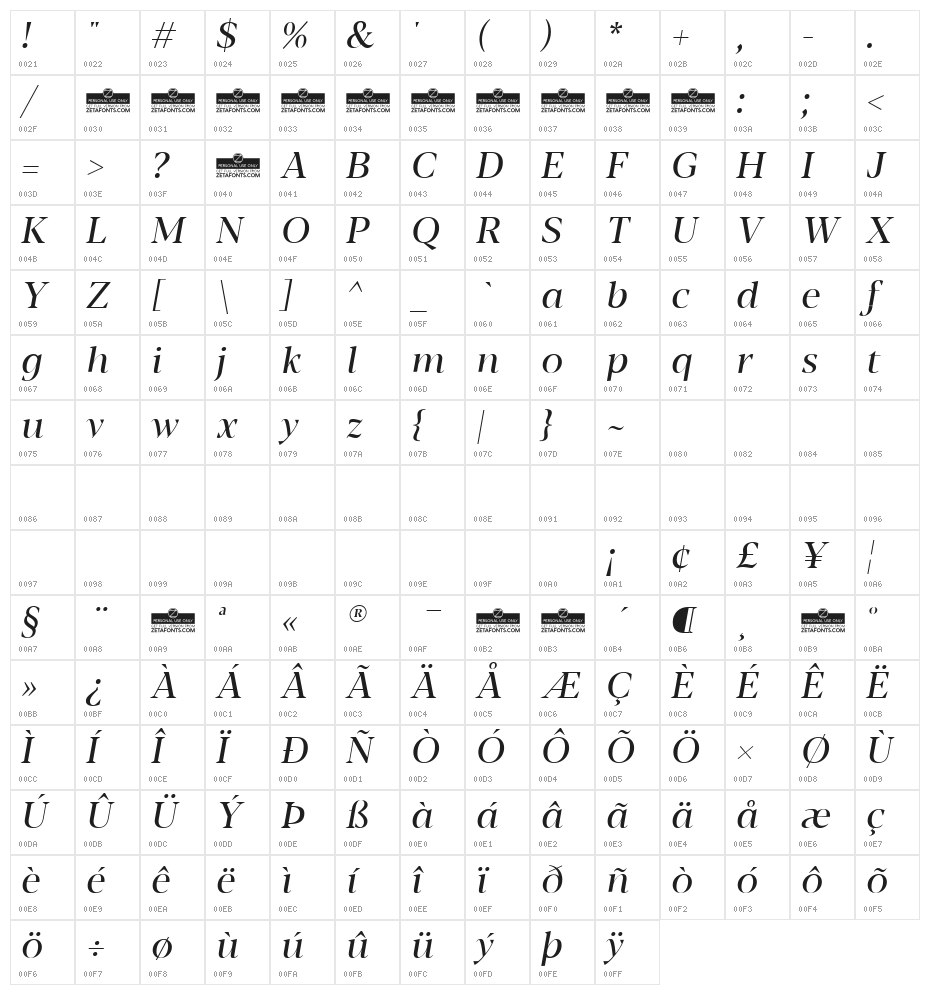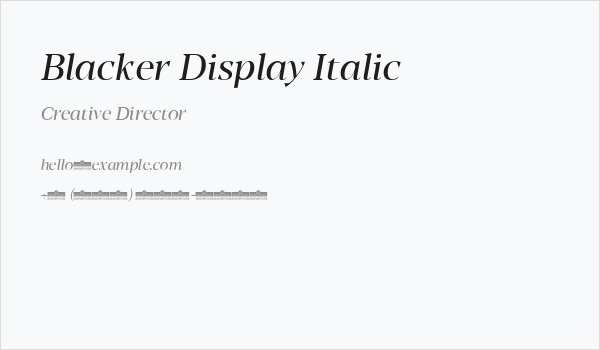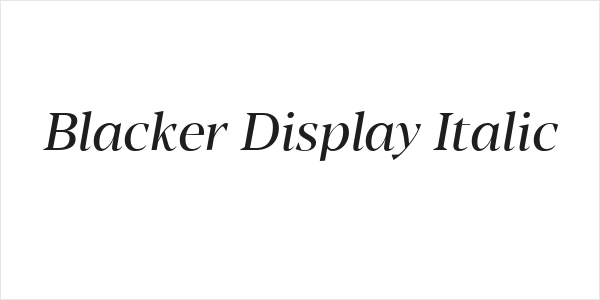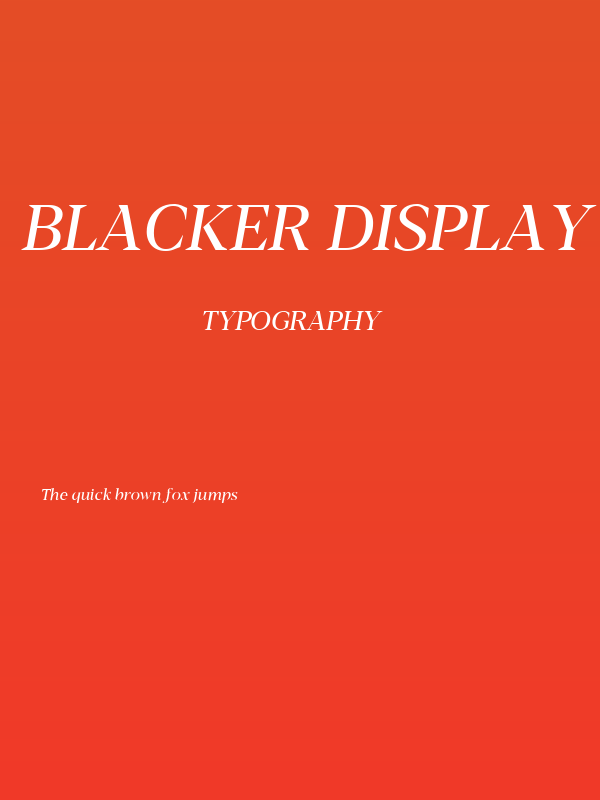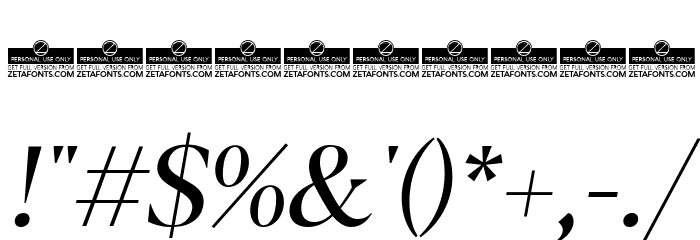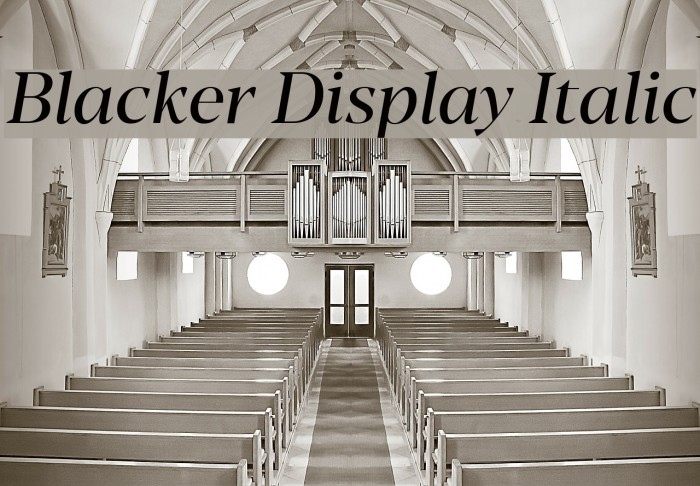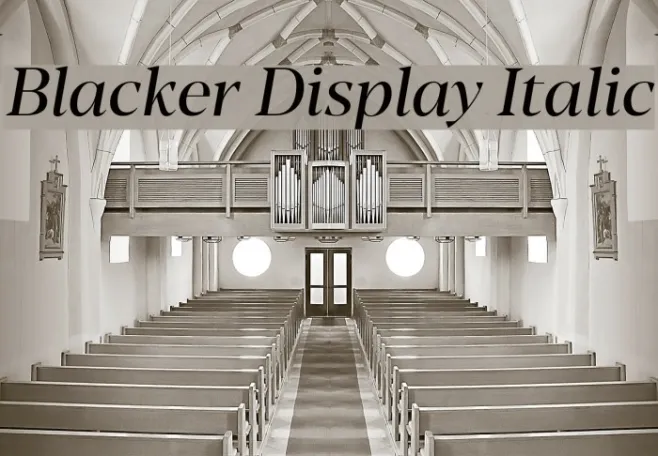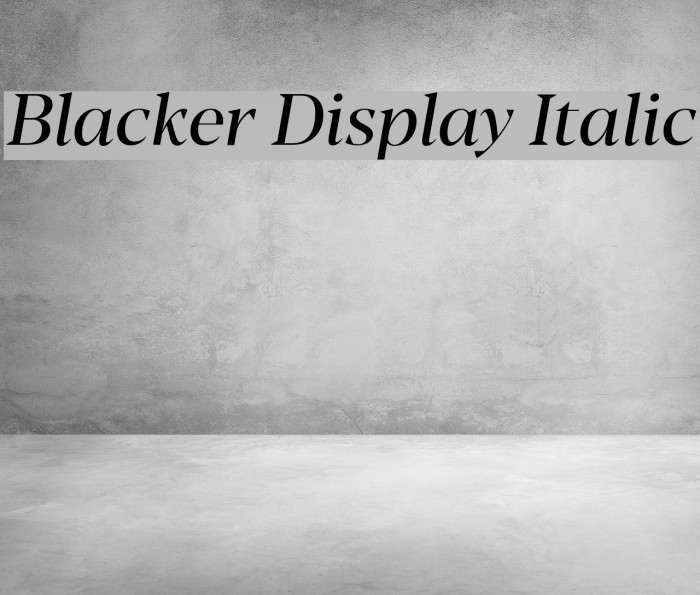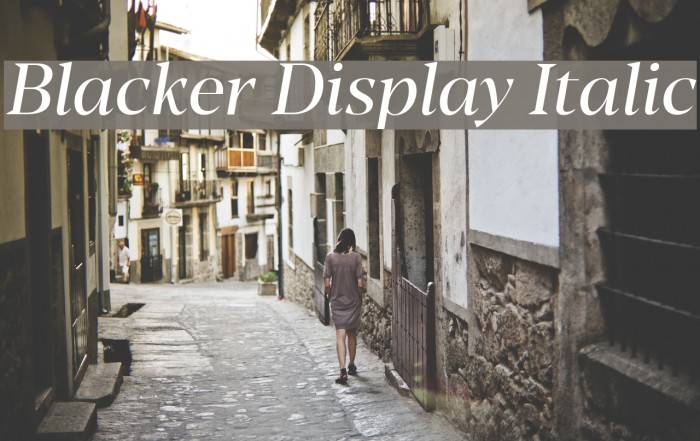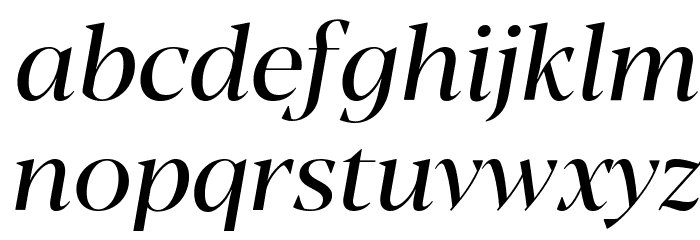
Blacker Display Italic Font
Blacker Display Italic Description
This font exudes a sophisticated and elegant style, characterized by its italicized form and high contrast between thick and thin strokes. The serifs are sharp and pronounced, adding a touch of classic refinement. The overall design is sleek and modern, making it suitable for high-end branding and editorial use. The uppercase letters are tall and commanding, while the lowercase letters maintain a graceful flow. The numerals and special characters are designed with the same attention to detail, ensuring consistency throughout the typeface.
| Use Case | Headlines, Logos, Editorial design |
| Proposed Projects | Ideal for luxury branding, fashion magazines, elegant invitations, and high-end product packaging. |